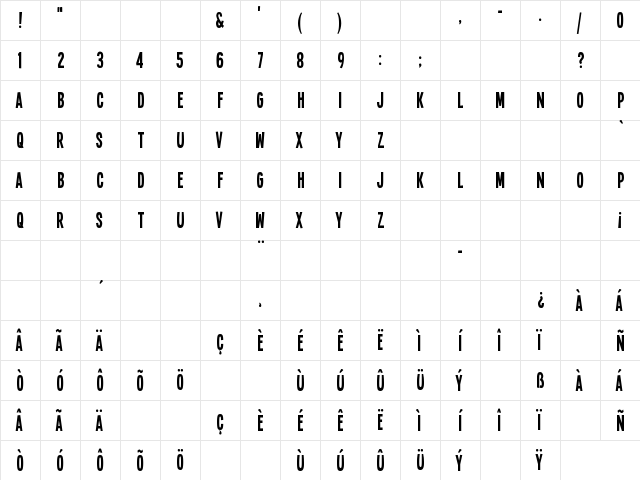
Single Sleeve Regular
Design Context for Single Sleeve Typeface
Single Sleeve takes a measured approach to typography — its balanced proportions and neutral character make it a reliable workhorse for both digital and print work.